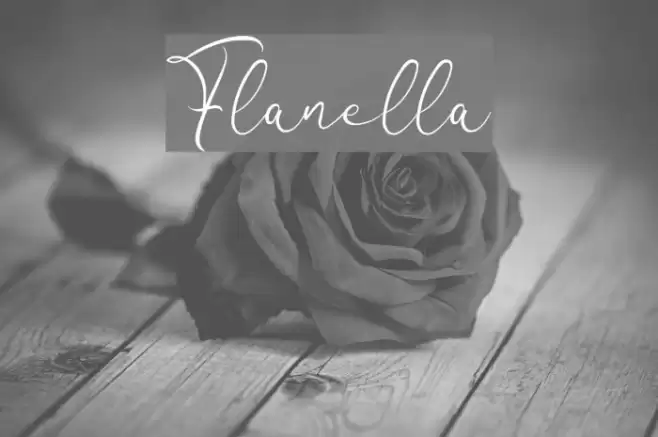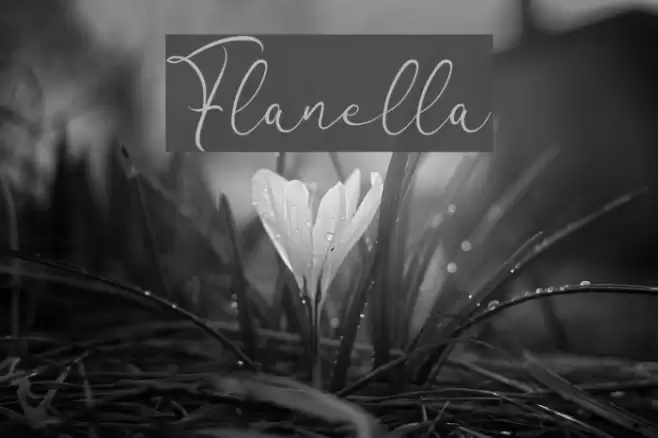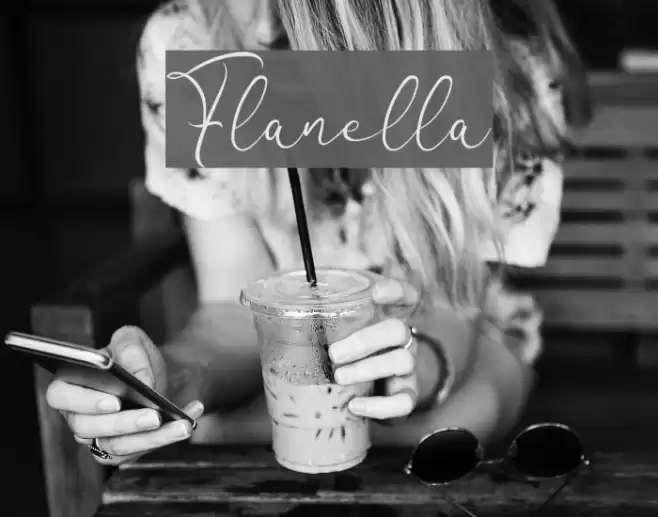
Flanella Font
Flanella Description
This elegant script font features fluid, interconnected strokes that give it a sophisticated and graceful appearance. The uppercase letters are ornate, with sweeping curves and flourishes that add a touch of luxury. The lowercase letters maintain a consistent flow, enhancing readability while retaining an artistic flair. Numbers and special characters are designed with the same attention to detail, ensuring a cohesive look across all text elements. This font is perfect for projects that require a touch of elegance and refinement.
A graceful script font with fluid, interconnected strokes and ornate flourishes from Uncategorized fonts.
- Proposed Projects: Ideal for wedding invitations, elegant branding, luxury product packaging, and decorative signage.
- Overall Style: Elegant
- Use Case: Logos, Invitations, Decorative text